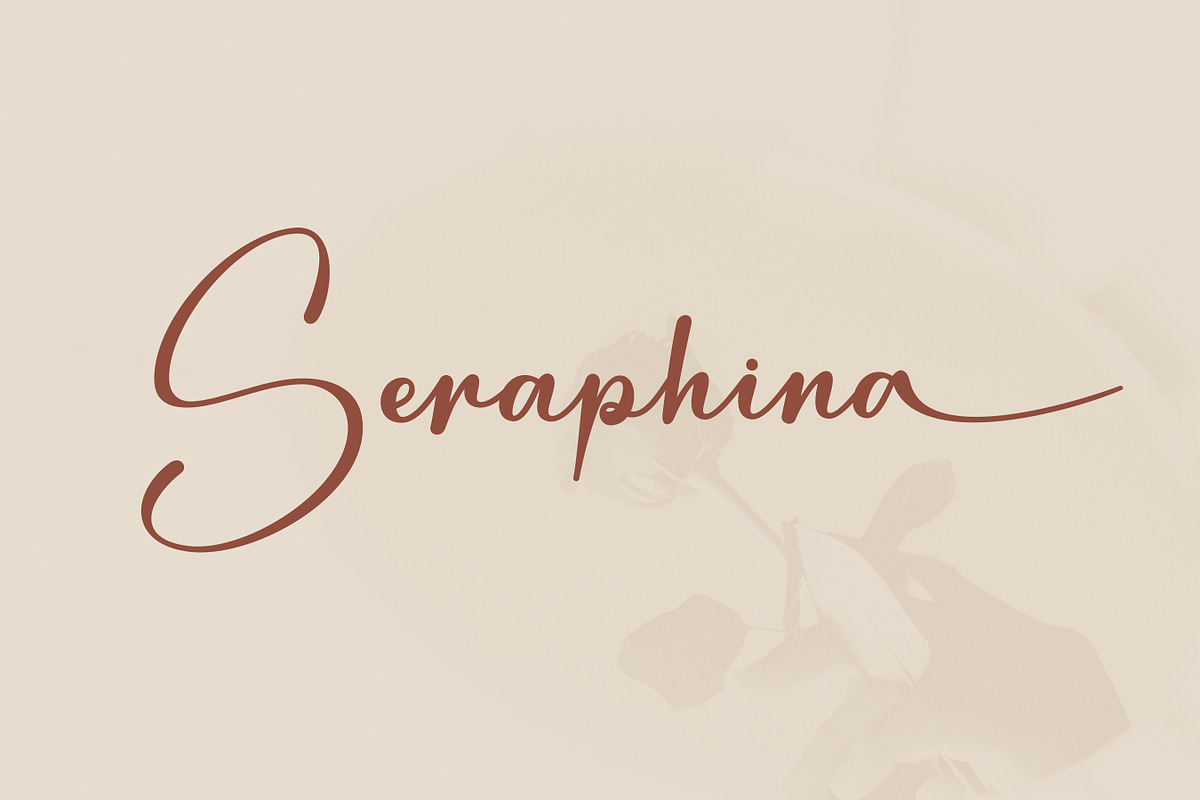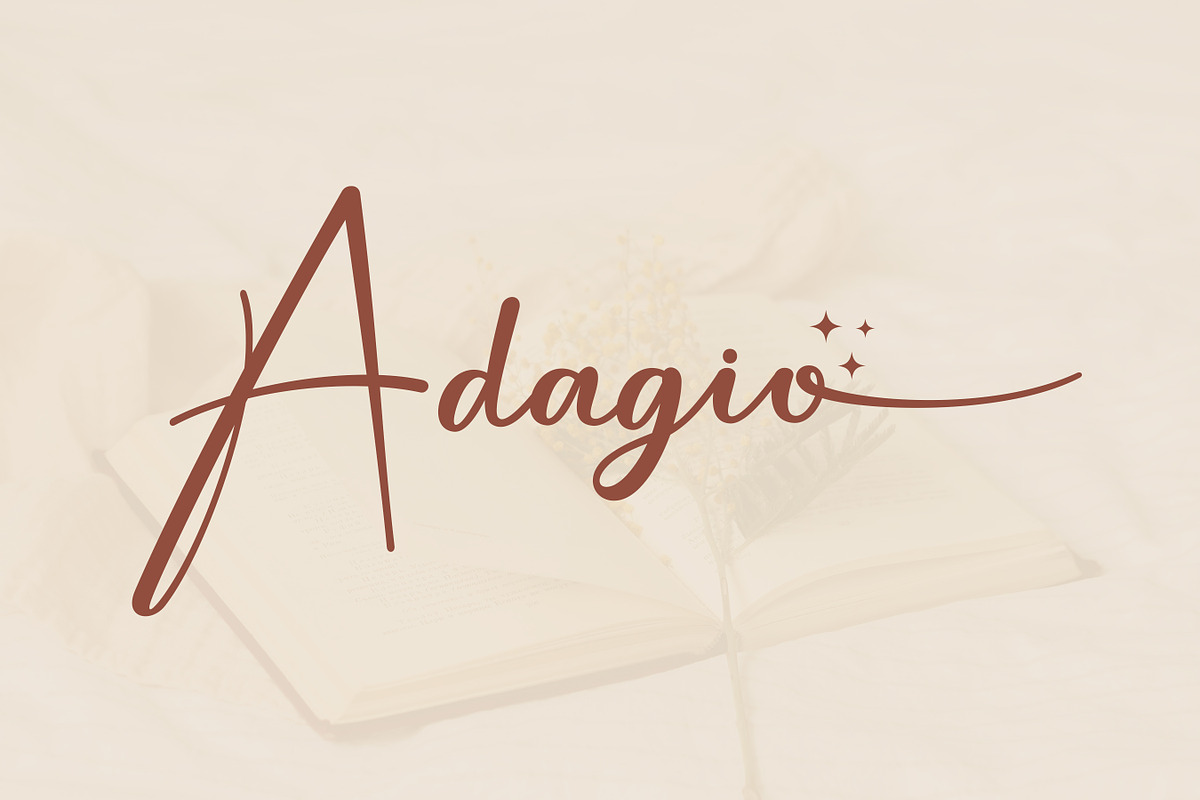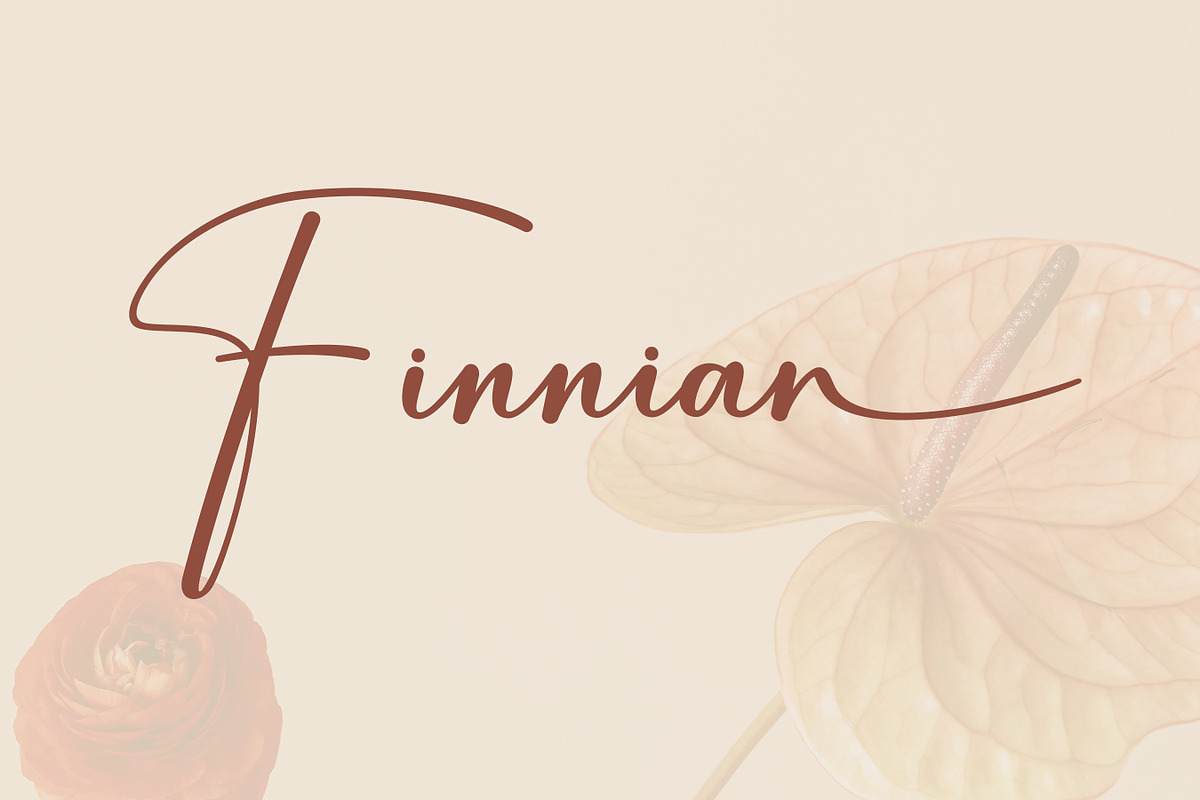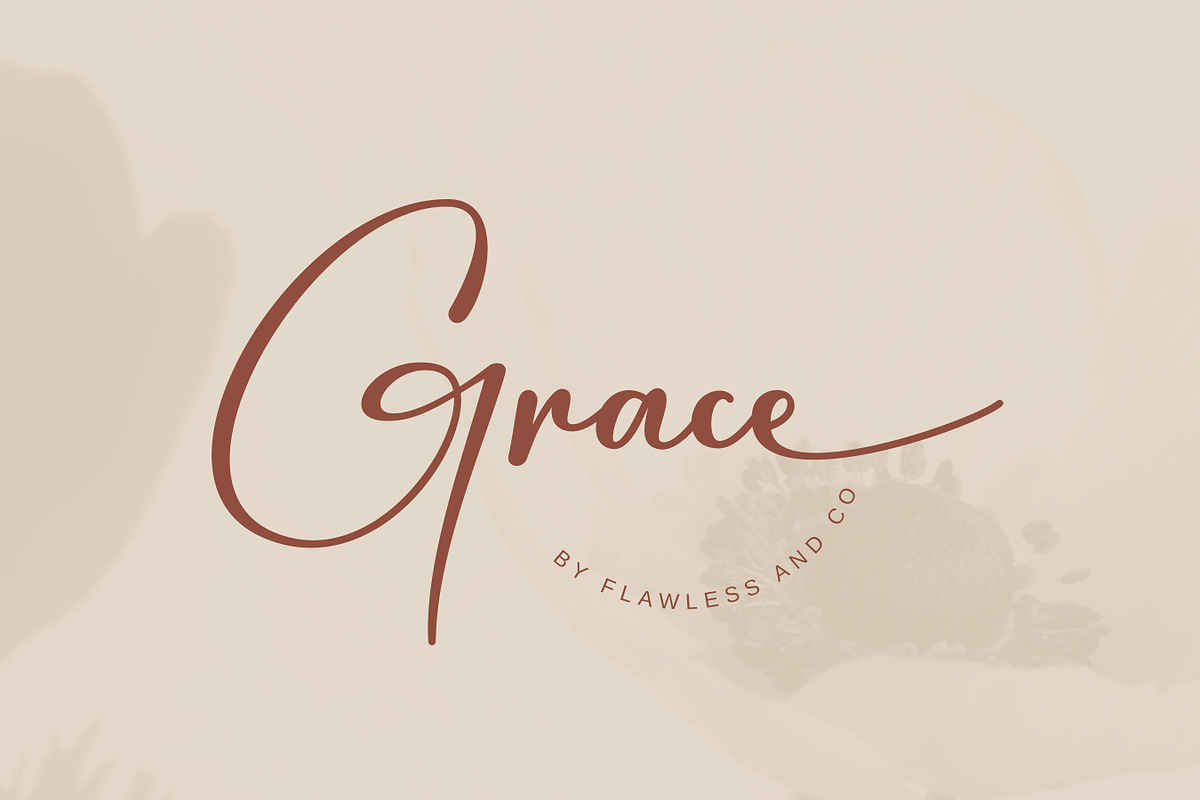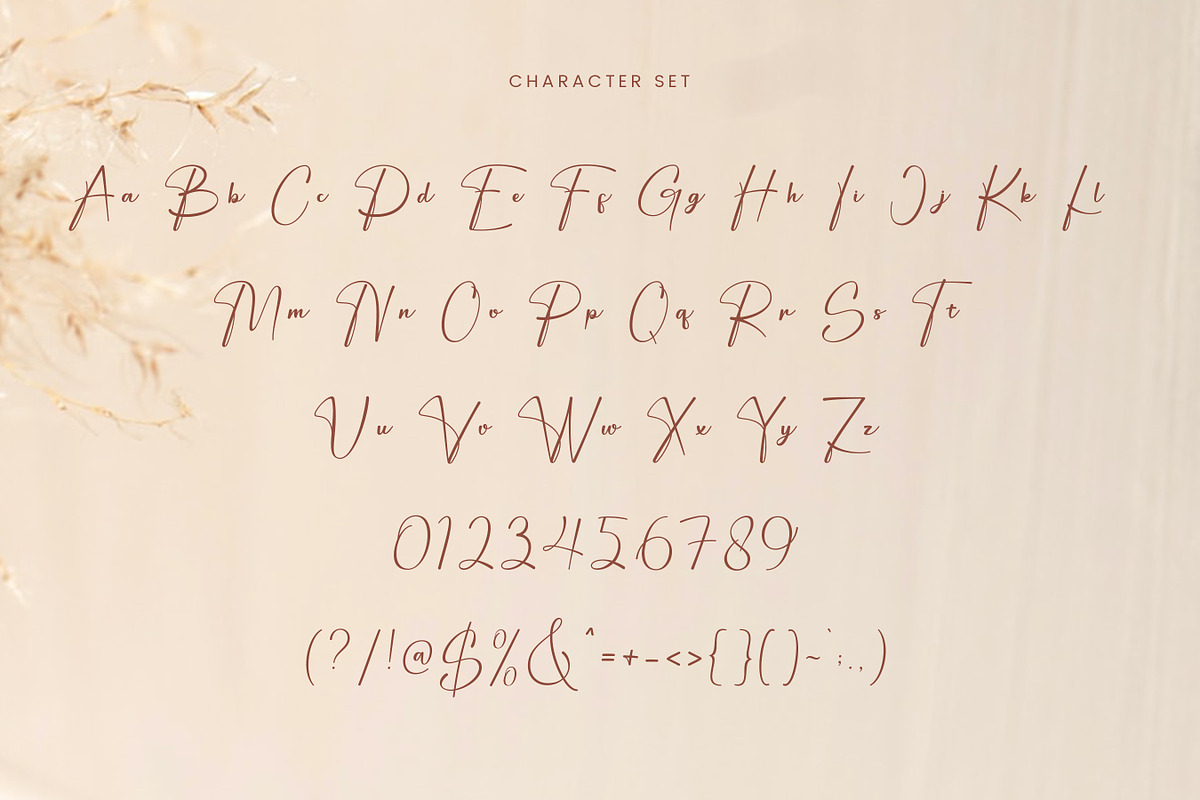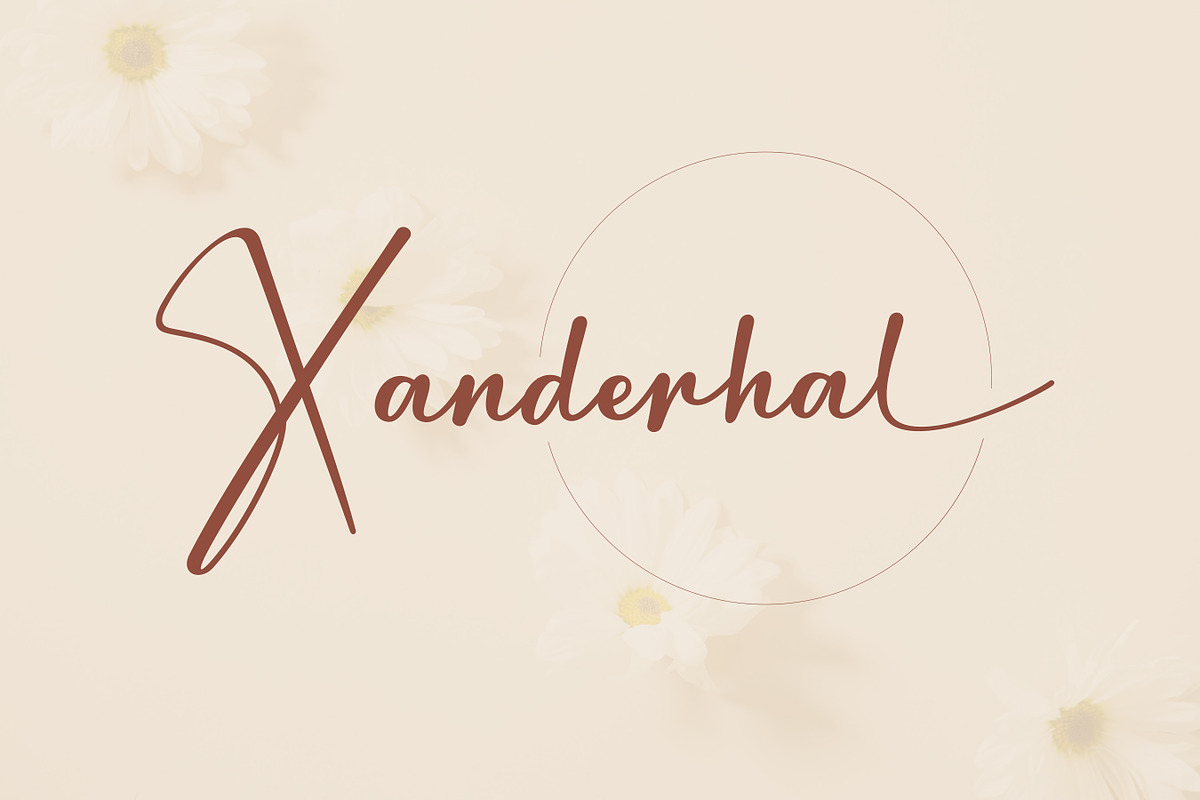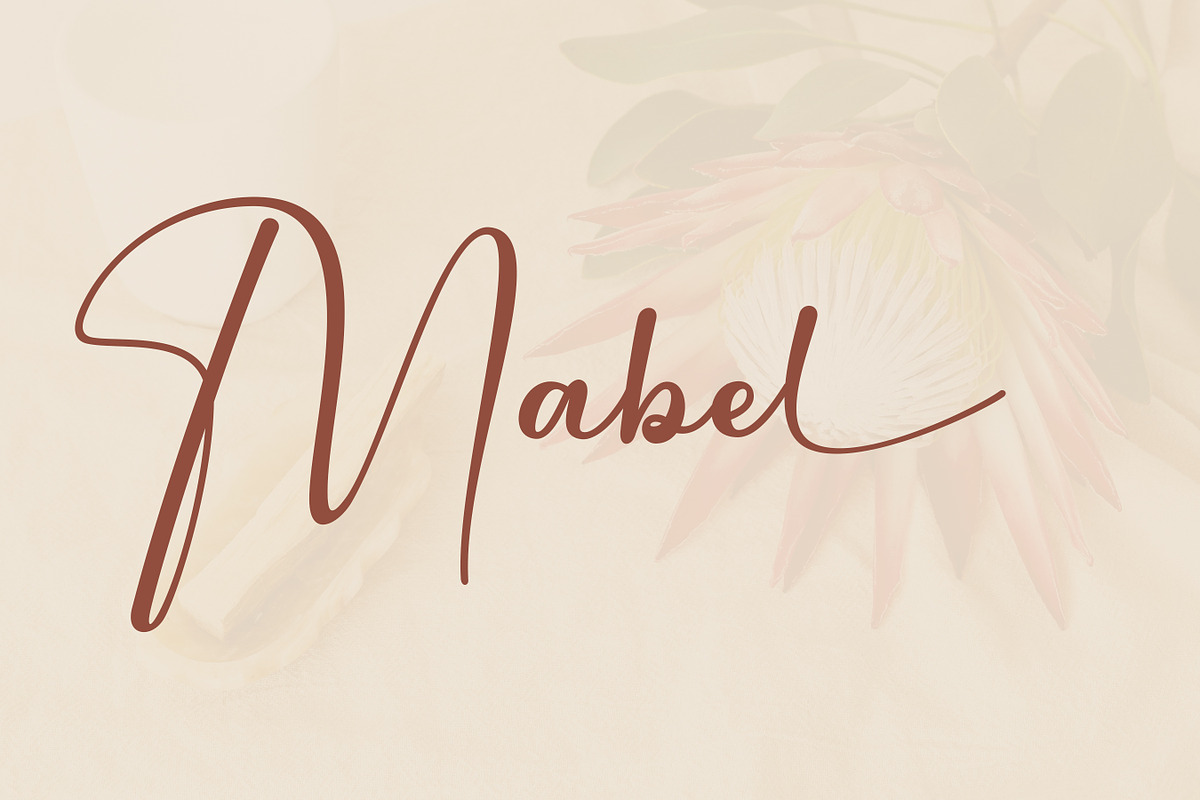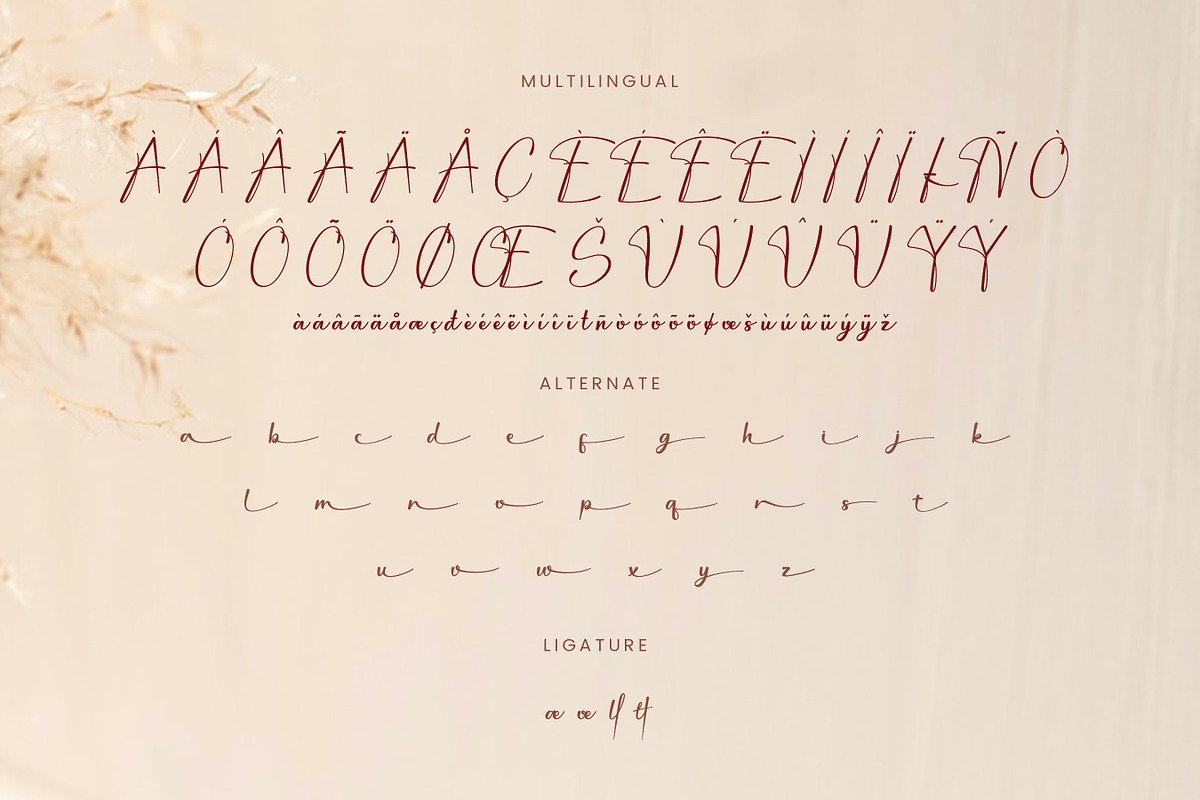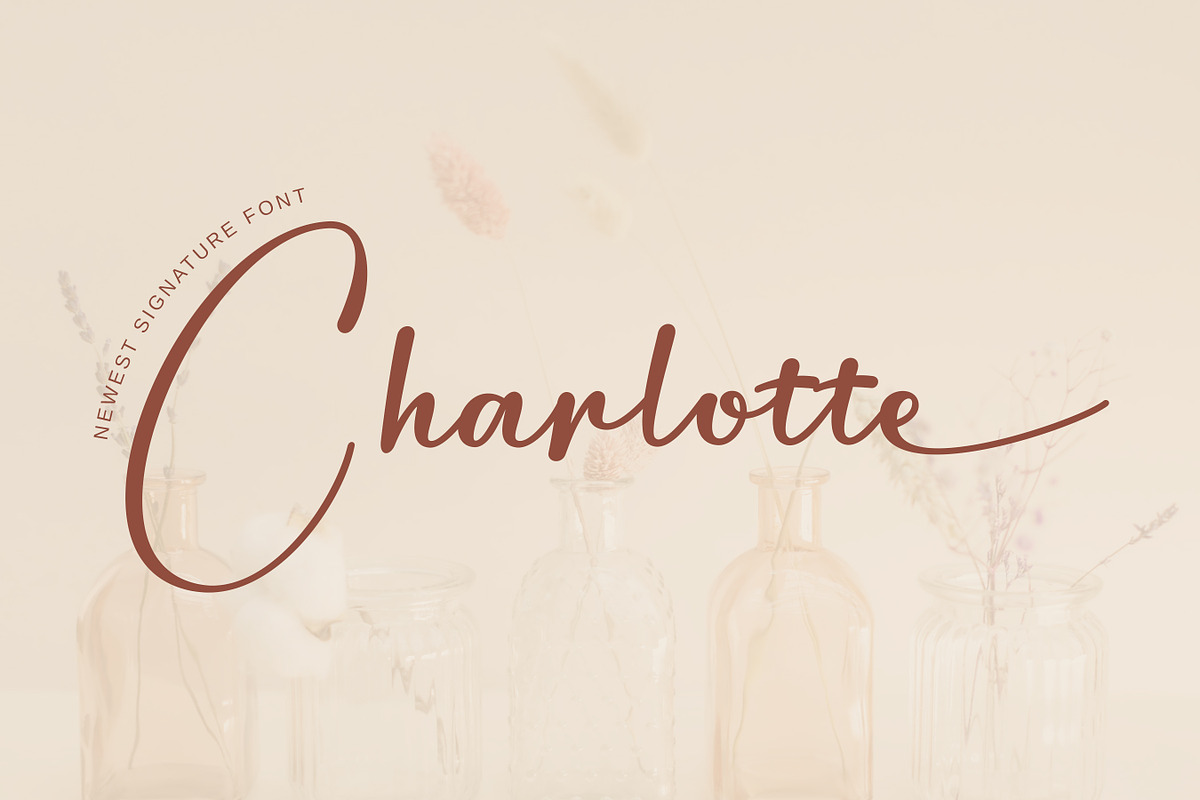
Ballory - Elegant Signature Font
Introducing "Ballory" - An Elegant Signature Script Font. Unveil the essence of refined personal style with "Ballory," an exquisite signature script font that radiates elegance and sophistication. With its flowing strokes and graceful letterforms, "Ballory" is crafted to add a touch of timeless beauty and luxurious flair to your designs.
Multilingual Uppercase alphabet A-Z Lowercase alphabet a-z Alternate Character Numbers 0-9 Some punctuation